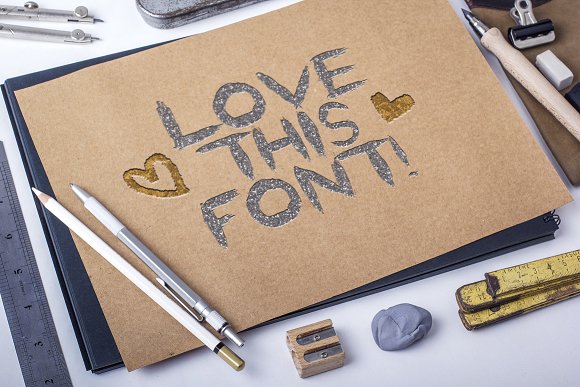
Coalface Font: A Handcrafted Beauty for Designers and Crafters
Coalface is a stunning handcrafted font created by Creativeqube, a renowned design studio known for producing high-quality, unique typography. This beautiful font is perfect for designers and crafters looking to add a touch of personality to their projects. In this article, we’ll dive into the world of Coalface Font, exploring its features, uses, and benefits.
The Story Behind Coalface Font
Coalface Font is a labor of love, carefully crafted by the talented team at Creativeqube. The font’s design is inspired by traditional printing techniques, with a modern twist. The result is a beautiful, handcrafted font that exudes warmth and character. Coalface is perfect for projects that require a personal touch, such as branding, packaging, and stationery.
Key Features of Coalface Font
- Handcrafted with love: Coalface Font is meticulously crafted by skilled designers, ensuring every detail is perfect.
- Unique character set: The font features a wide range of characters, including uppercase and lowercase letters, numbers, and punctuation marks.
- High-quality design: Coalface Font is designed with precision and attention to detail, making it perfect for high-end projects.
Uses of Coalface Font
Coalface Font is versatile and can be used in a variety of projects, including:
- Branding and packaging: Add a touch of personality to your brand with Coalface Font, perfect for labels, packaging, and business cards.
- Stationery and invitations: Create beautiful, handmade-style stationery and invitations with Coalface Font.
- Digital design: Use Coalface Font in digital projects, such as website headers, social media graphics, and email newsletters.
- Crafting and DIY projects: Coalface Font is perfect for crafters, adding a personal touch to DIY projects, such as handmade cards and scrapbooking.
Benefits of Using Coalface Font
By using Coalface Font, designers and crafters can:
- Add personality to their projects: Coalface Font brings a unique, handmade touch to any project.
- Stand out from the crowd: The font’s distinctive design ensures your project will stand out from the competition.
- Enhance their brand: For designers and crafters, Coalface Font can help establish a consistent brand identity.
Tips for Using Coalface Font
To get the most out of Coalface Font, follow these tips:
- Experiment with font sizes: Coalface Font looks great in a variety of font sizes, from large headings to smaller body text.
- Pair with complementary fonts: Combine Coalface Font with other fonts to create a unique and visually appealing typography.
- Use in combination with images: Coalface Font pairs perfectly with images, adding a touch of personality to your design.
Coalface Font is a beautiful, handcrafted font created by Creativeqube. With its unique character set, high-quality design, and ease of use, it’s perfect for designers and crafters looking to add a touch of personality to their projects. Whether you’re working on branding, packaging, stationery, or digital design, Coalface Font is sure to impress. So why not give it a try and see the difference it can make in your design work?